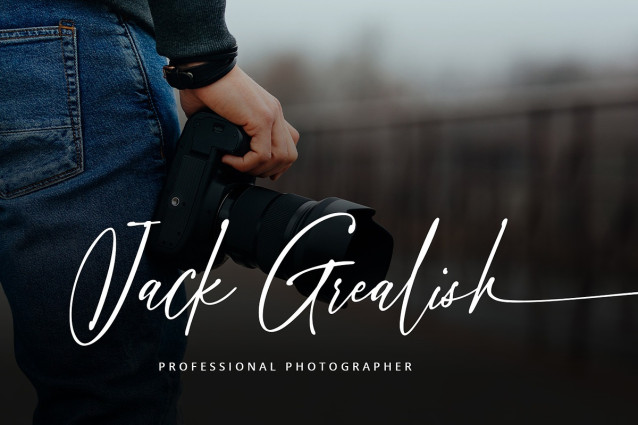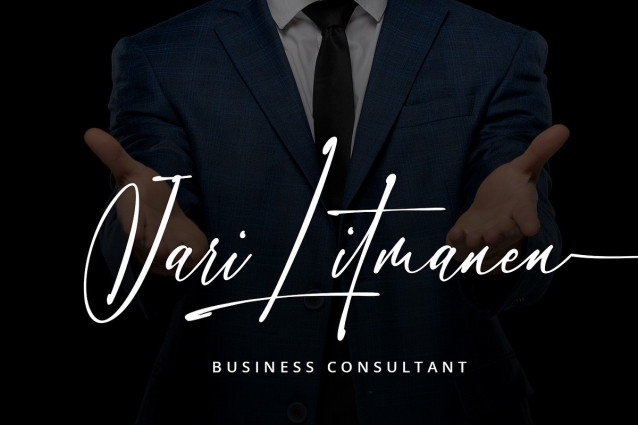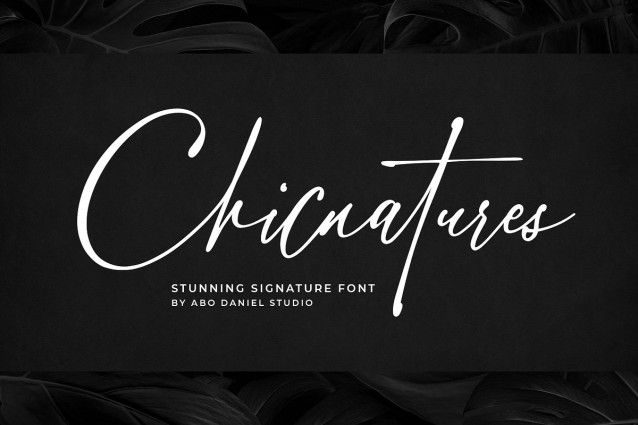
Chicnatures Font
Chicnatures Font is perfect for branding, logotype, photography, invitations, quotes, watermarks, advertisements, cards, product designs, labels, social media, and much more!